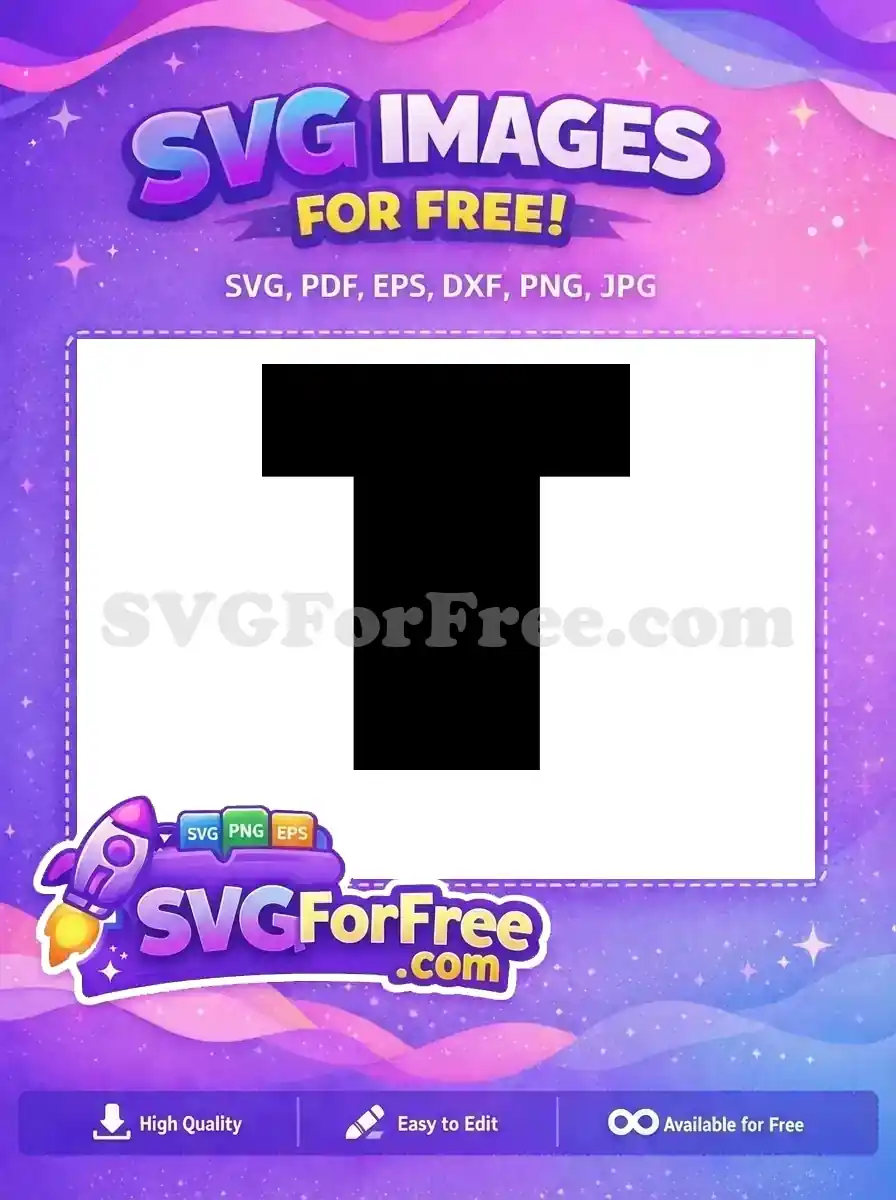
Free Bold Minnie Font Free Black Silhouette Initial Free SVG 1 – Instant Download
Solid black block letter T, free vector for bold statements.
Free Bold Minnie Font Free Black Silhouette Initial Free SVG 1